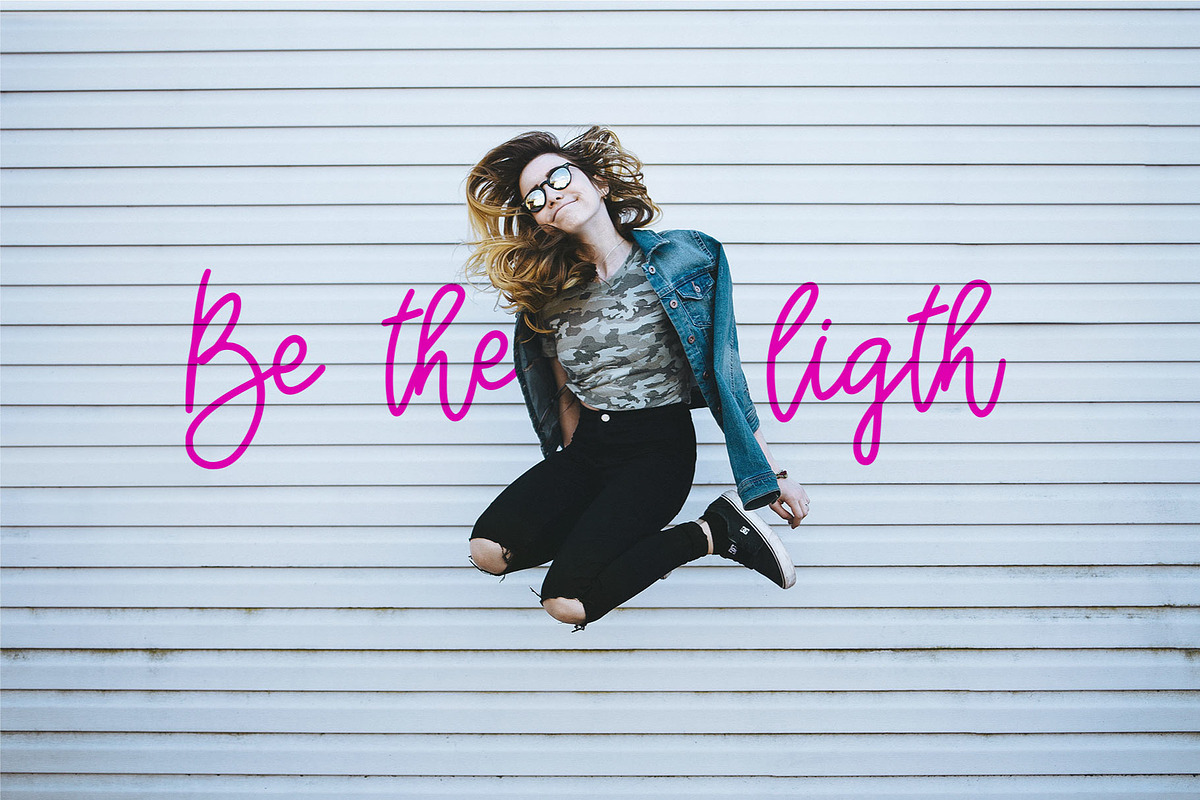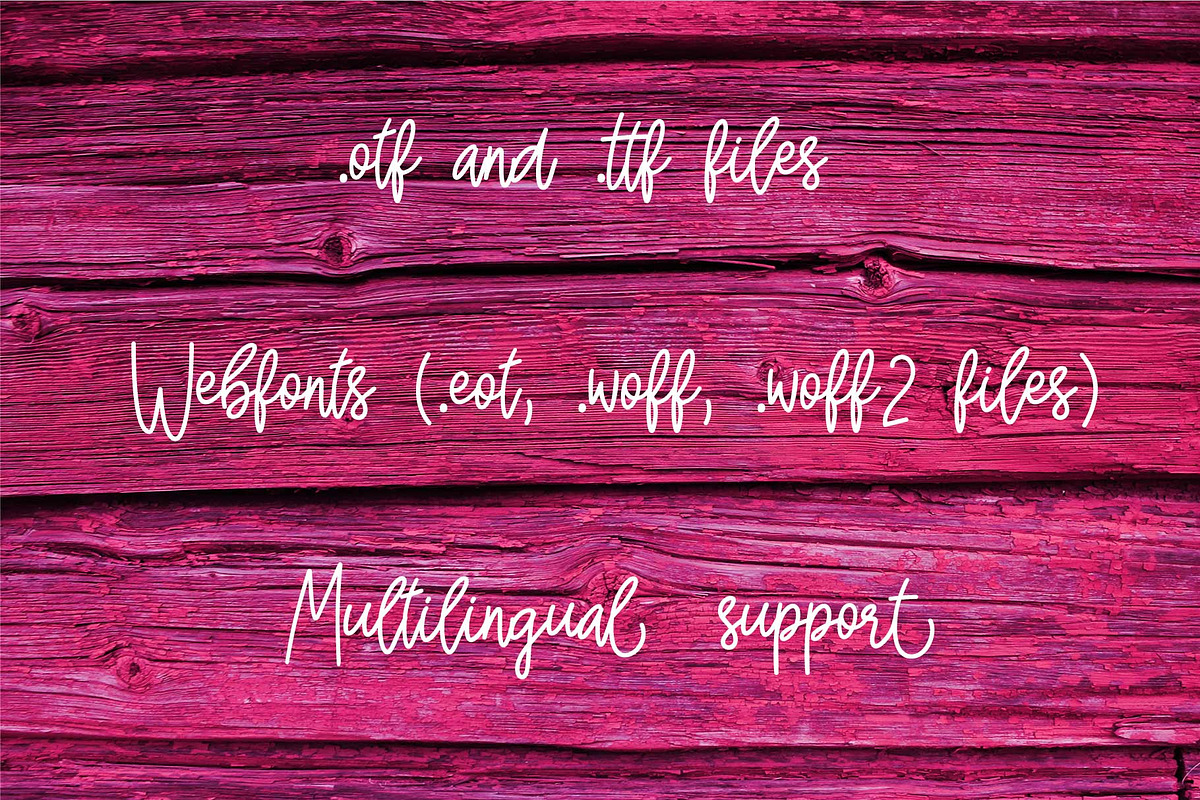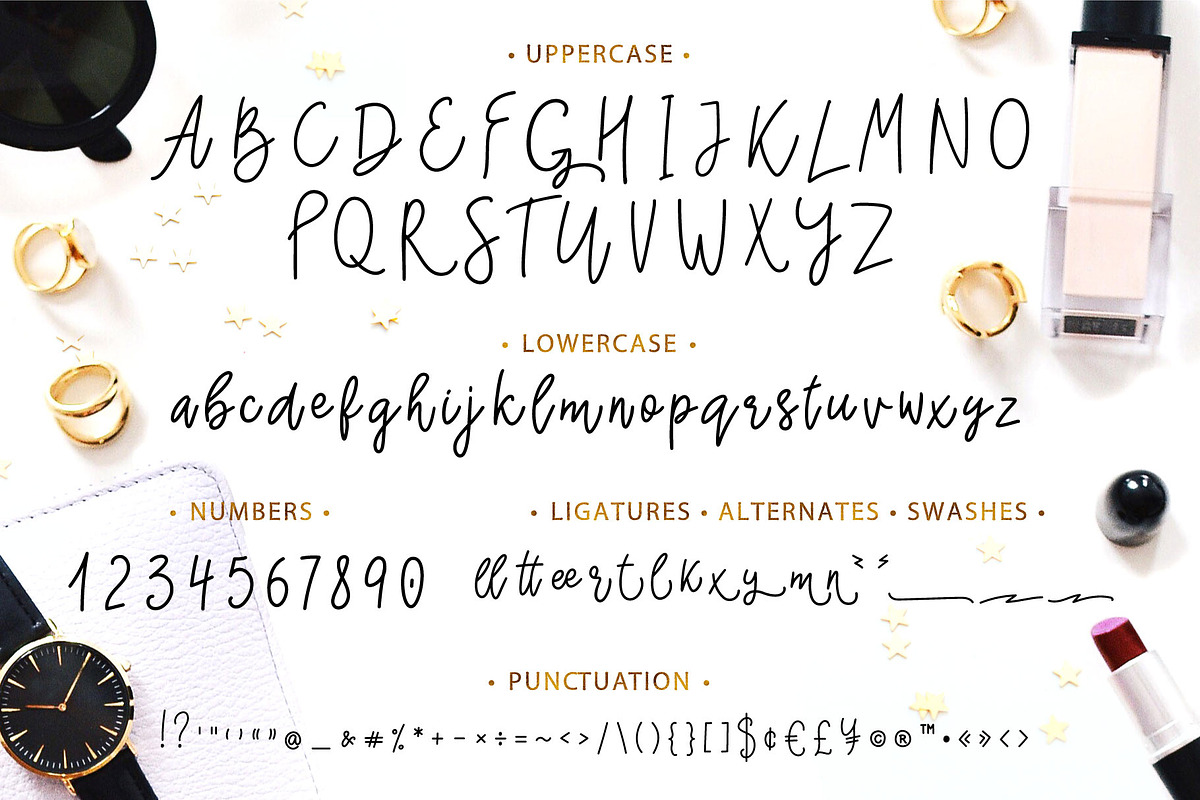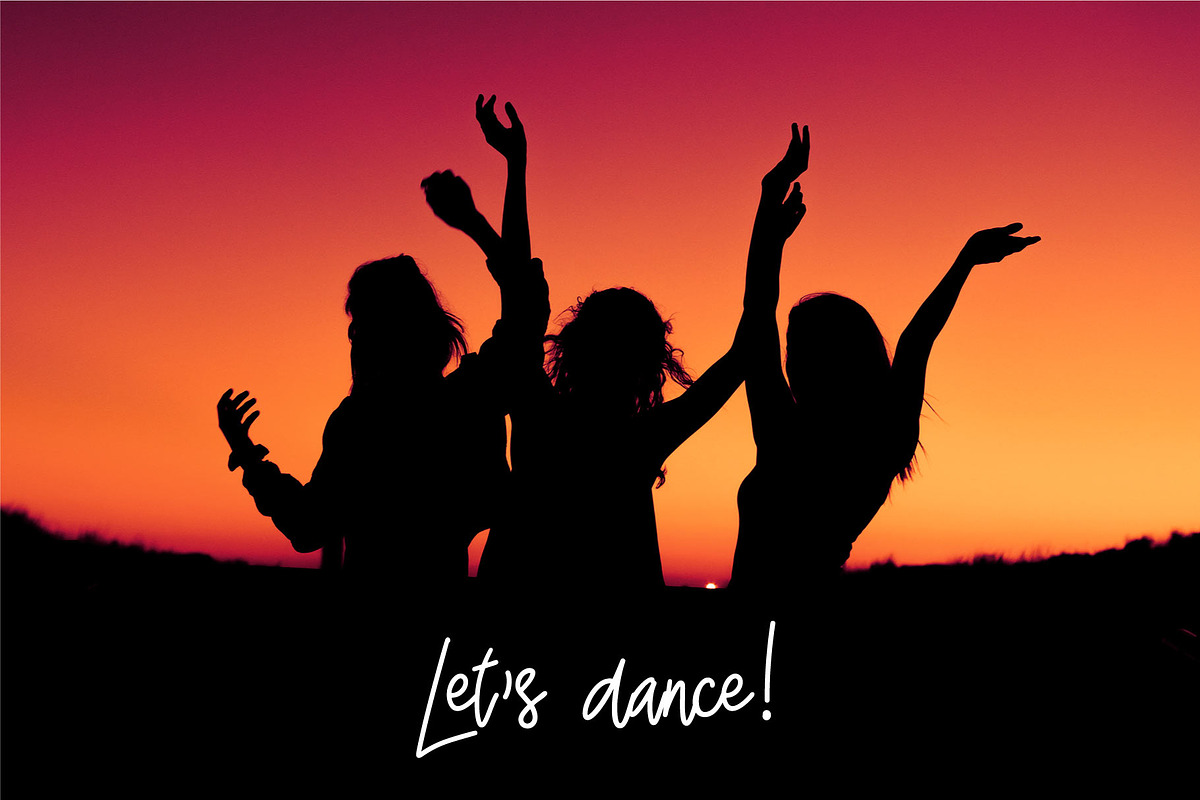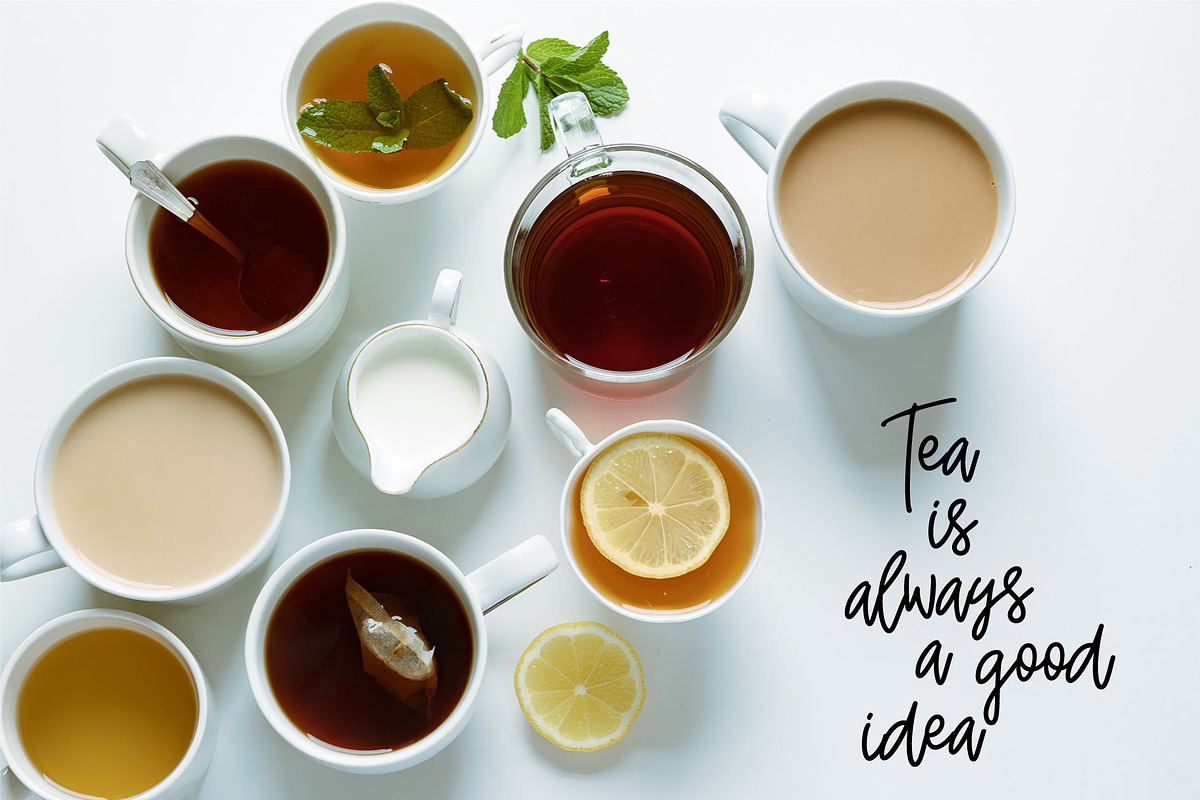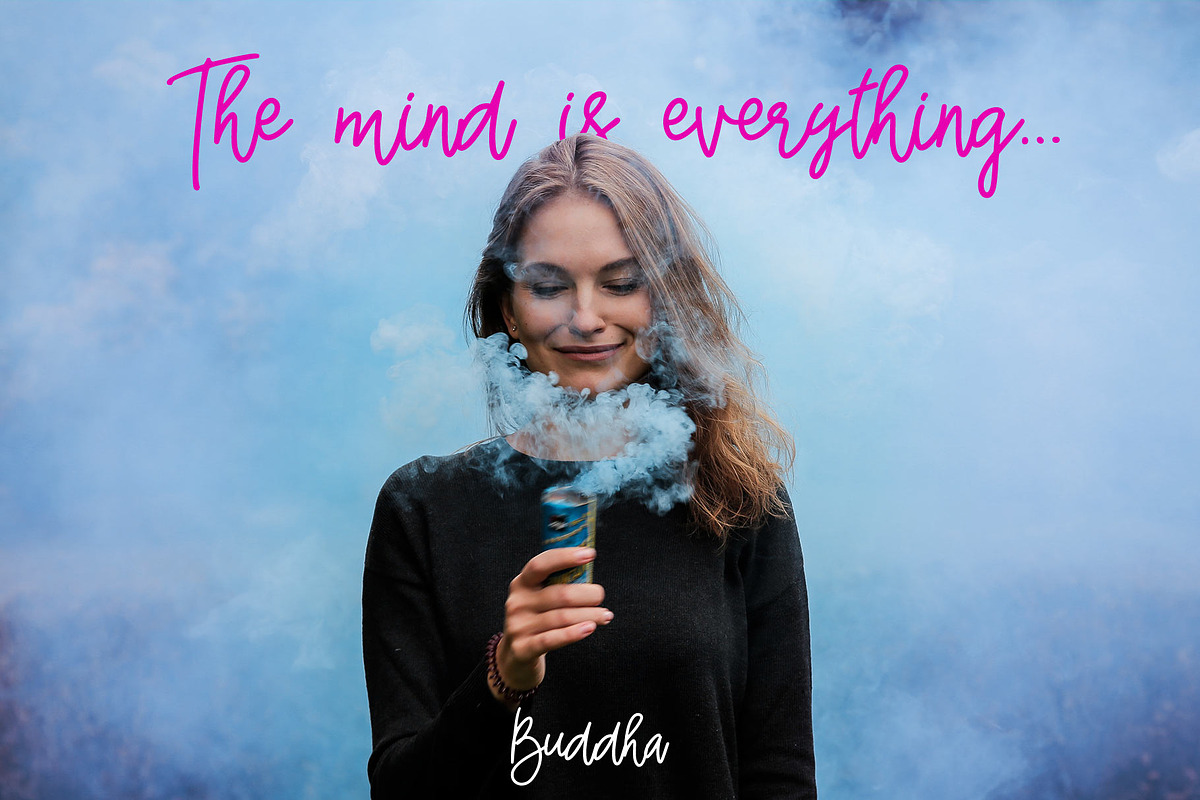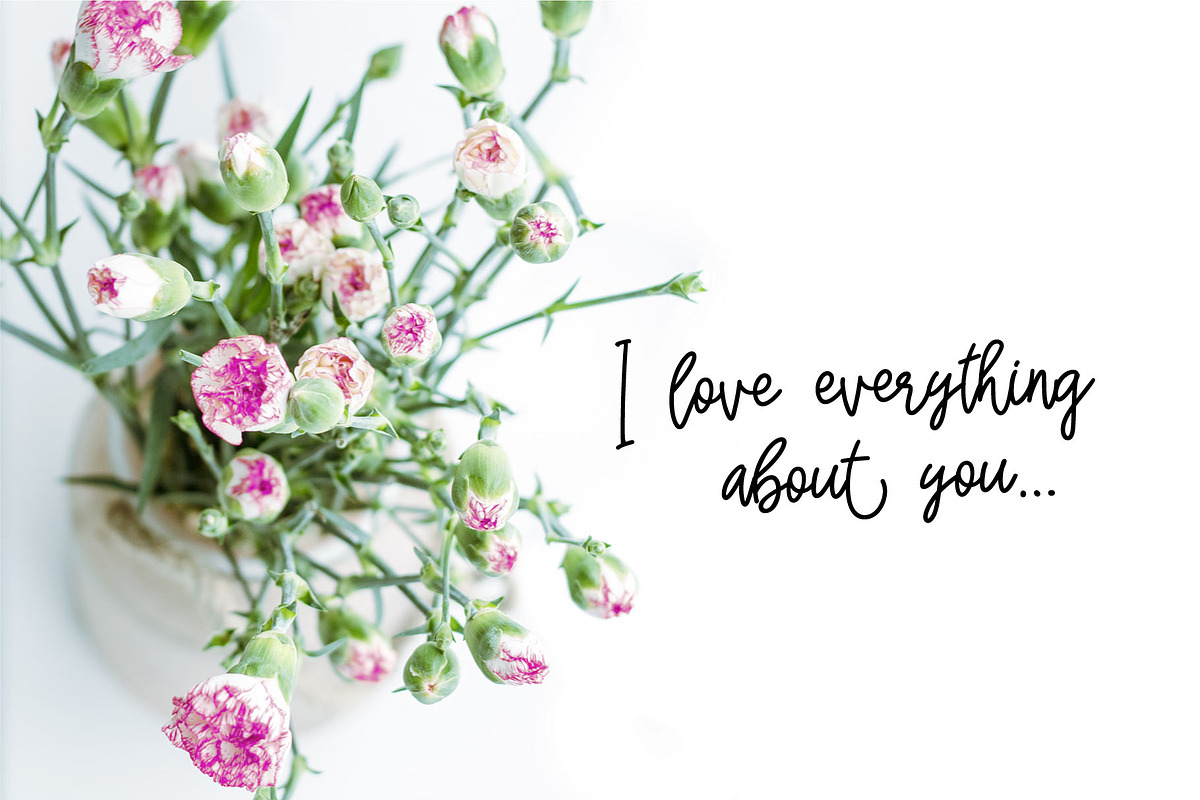
Girl Power font
Girl Power is a wedding calligraphy cursive font with a dancing baseline. This pretty monoline cursive will look gorgeous on all your designs, wedding stationery, love stories, branding materials, monoline logos, pretty teenage stickers, business and wedding cards, calligraphy insta quotes, elegant fashion sketches, calligraphy love monograms and much more.
Enjoy Girl Power wedding calligraphy font!
- Calligraphy character set
- Numerals and punctuation
- Calligraphy character set
- Numerals and punctuation
- Calligraphy character set
- Numerals and punctuation
- Alternates
- Swashes
- Multilingual support